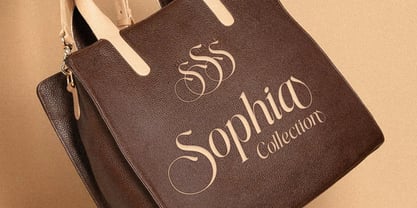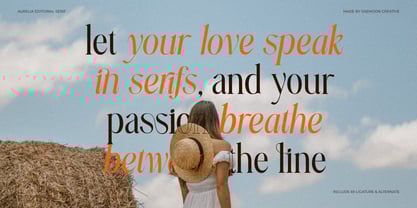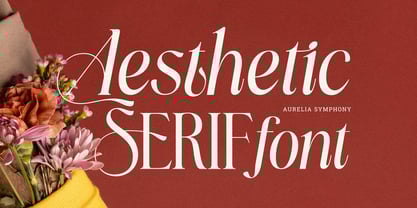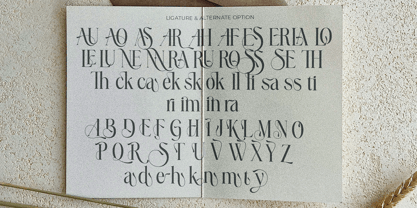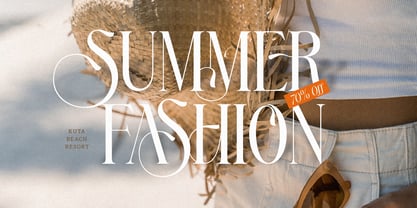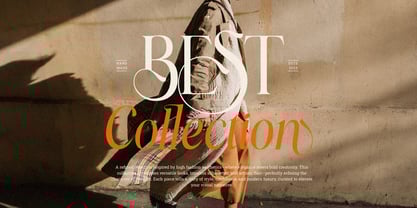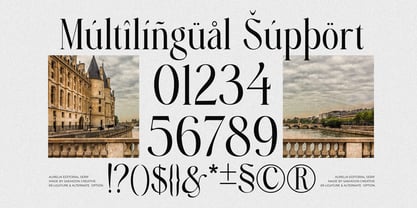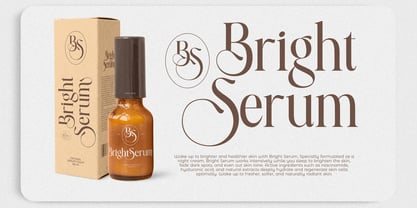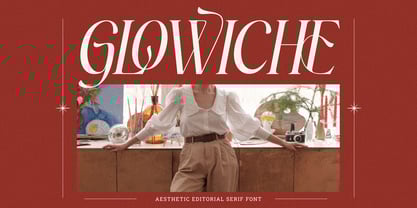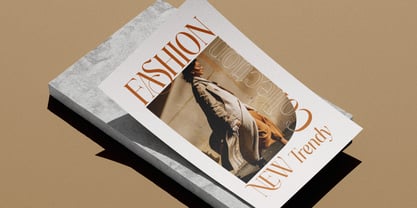
Aurelia Symphony
The Aurelia Symphony Font Family was designed by Sapto Susilo and published by Saemoon Creative. Aurelia Symphony contains 2 styles and family package options. More about this family
Aurelia Symphony is a graceful serif typeface that blends classic editorial elegance with expressive contemporary detail. Available in Regular and Italic styles, Aurelia Symphony is designed to bring luxury and visual harmony to any layout—whether in print or digital formats.
With its high-contrast strokes, smooth curves, and charming ligatures and alternates, this typeface is perfect for editorial design, fashion branding, book covers, and sophisticated packaging. The Italic style adds a romantic tone, bringing warmth and personality without sacrificing readability.
Let Aurelia Symphony enrich your typography with timeless beauty and refined artistic flair. Ideal for designers seeking a serif with soul.